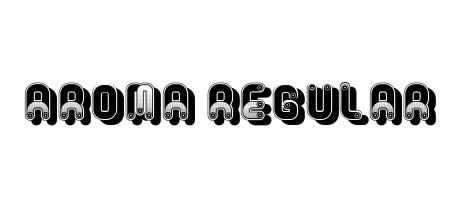
Aroma
Aroma Regular boasts a bold, retro-futuristic aesthetic. Its chunky, uppercase letters feature a distinctive, slightly rounded design with subtle inner shadows and bevels, creating a three-dimensional effect. The font exudes a playful yet sophisticated vibe, suggesting a blend of vintage style with modern energy. It’s perfect for titles, logos, or any design needing a strong visual presence.